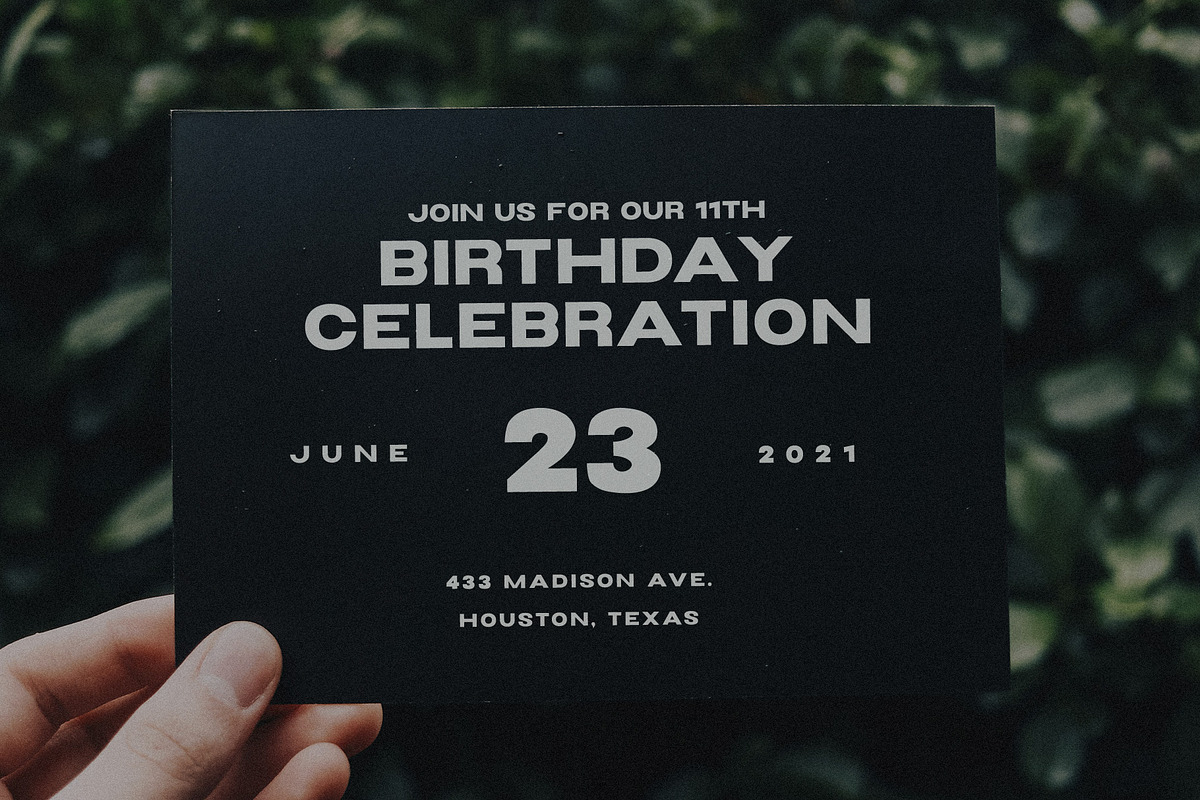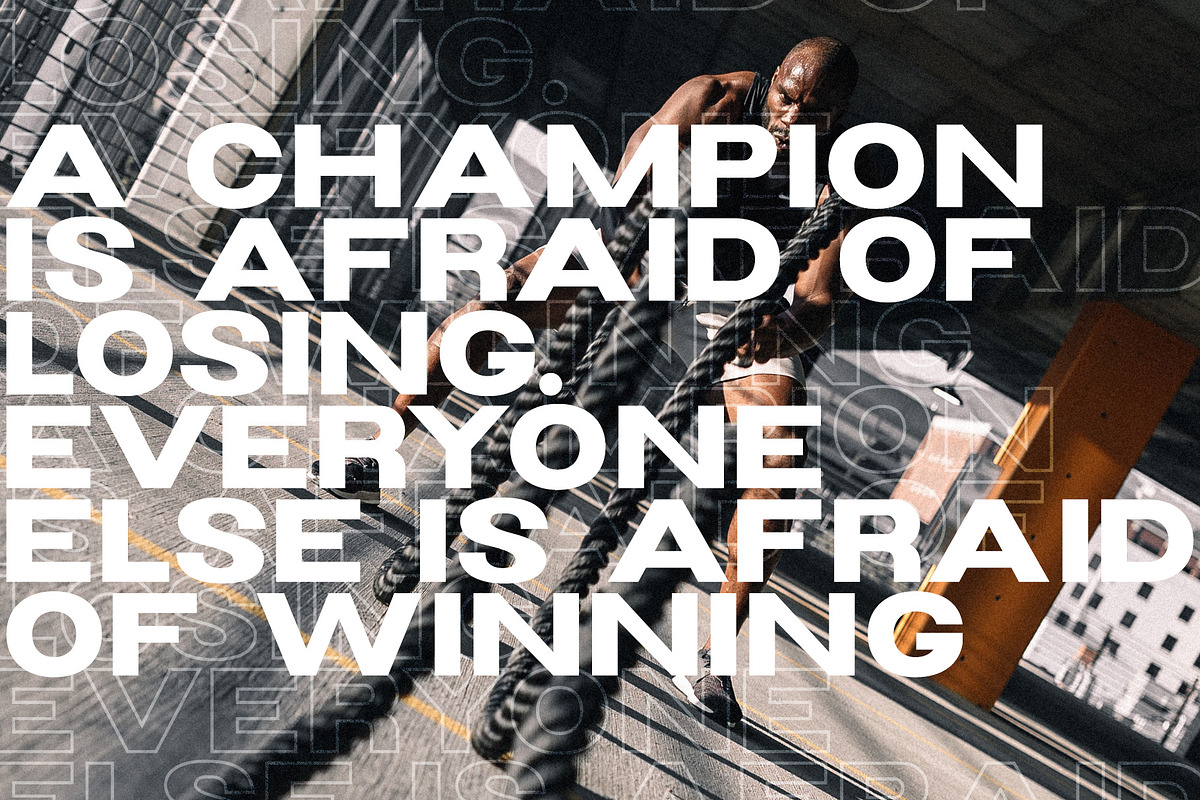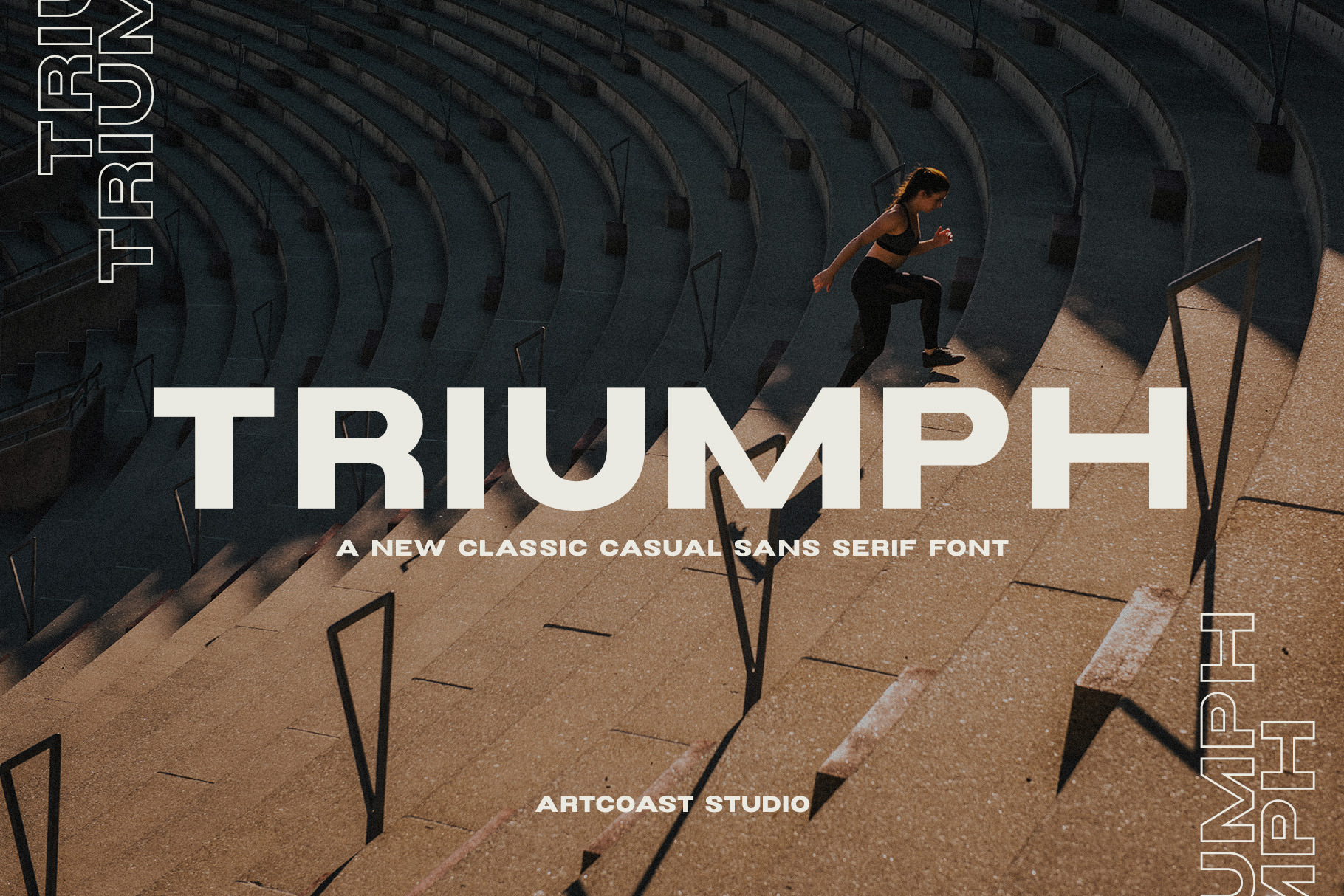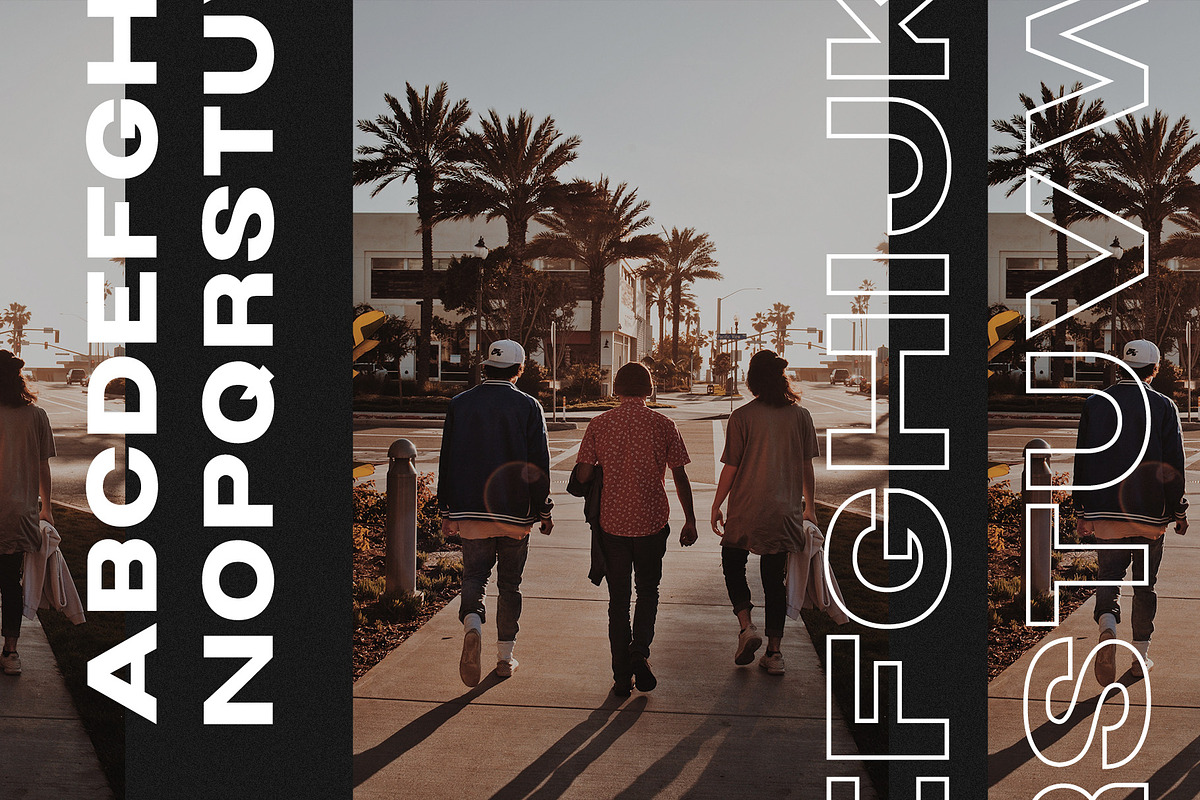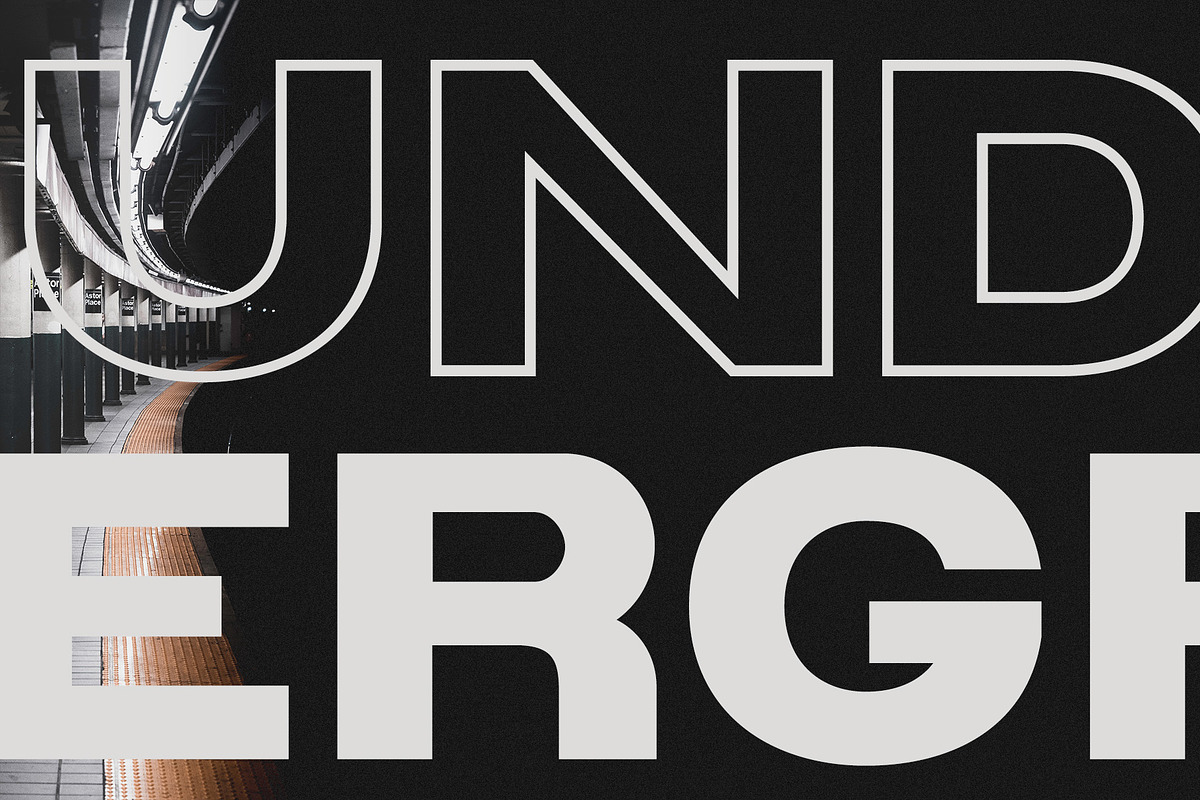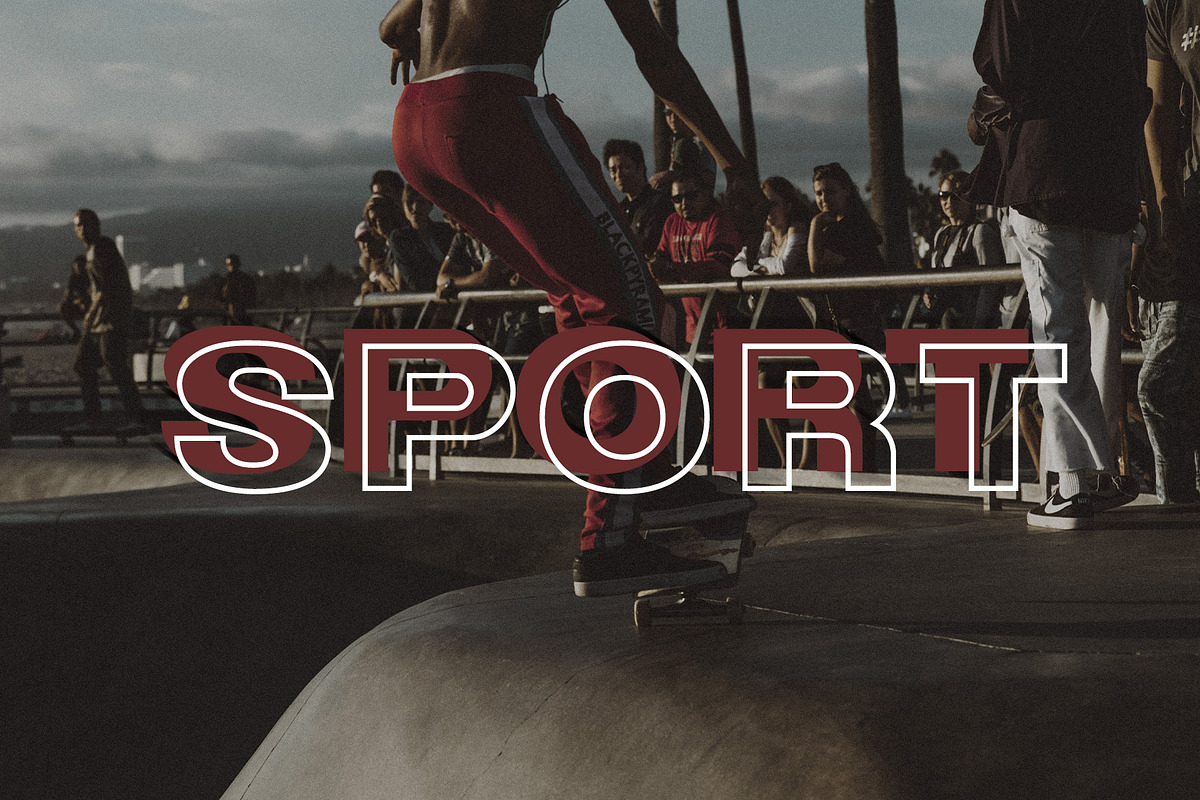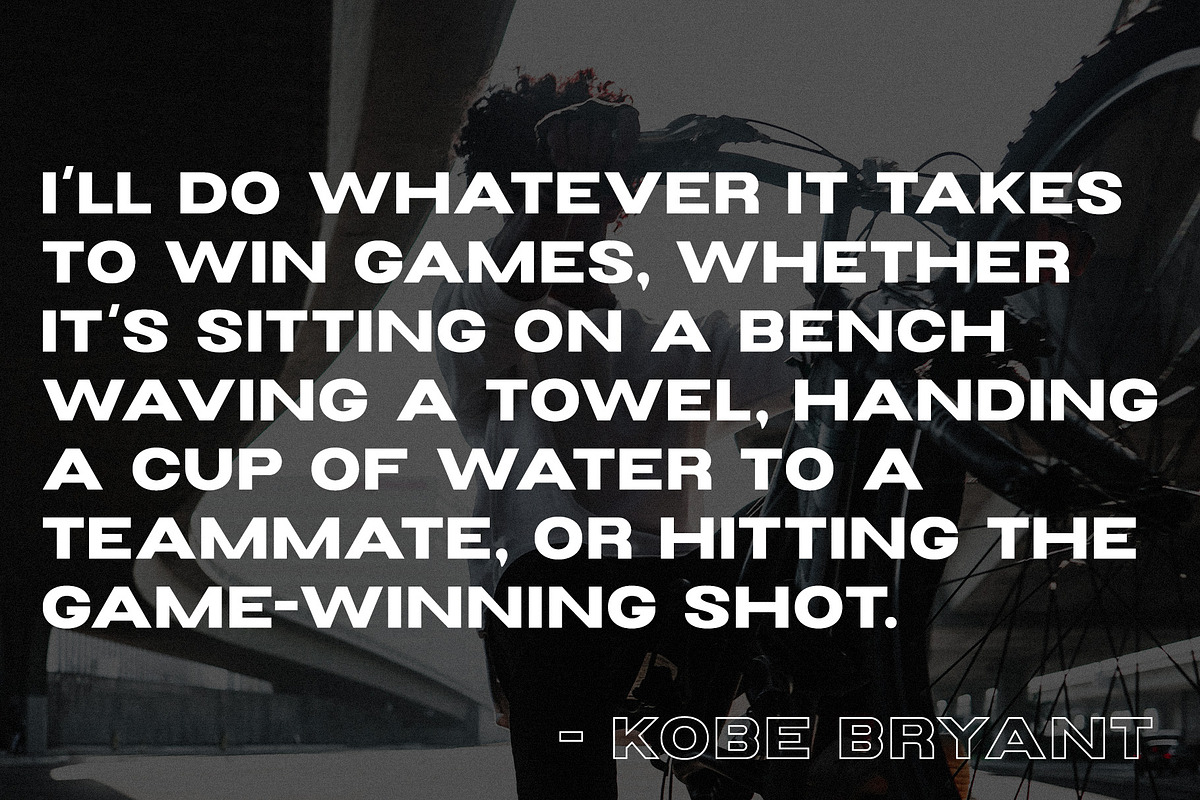
Triumph Bold Wide Sans Serif Font
Triumph is a bold, wide sans serif font family designed for confident, high-impact typography. Its clean geometric proportions and extended letterforms create a modern editorial look, while the Outline style adds contrast for layered layouts and striking title treatments.
Uppercase A–Z
Numbers and punctuation
Use Triumph for sports branding, fashion campaigns, magazine covers, posters, logos, packaging, album artwork, social media, event graphics, and oversized headlines. Combine the solid and outline styles to build dimensional compositions, badges, and dynamic typographic systems.